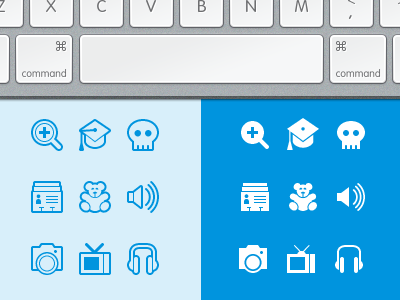
Symbolicons Font
I teamed with Symbolset to create SS Symbolicons, a semantic icon font using the glyphs from Symbolicons. Both the Line and Block sets are available. Check it out at http://symbolset.com/#symbolicons